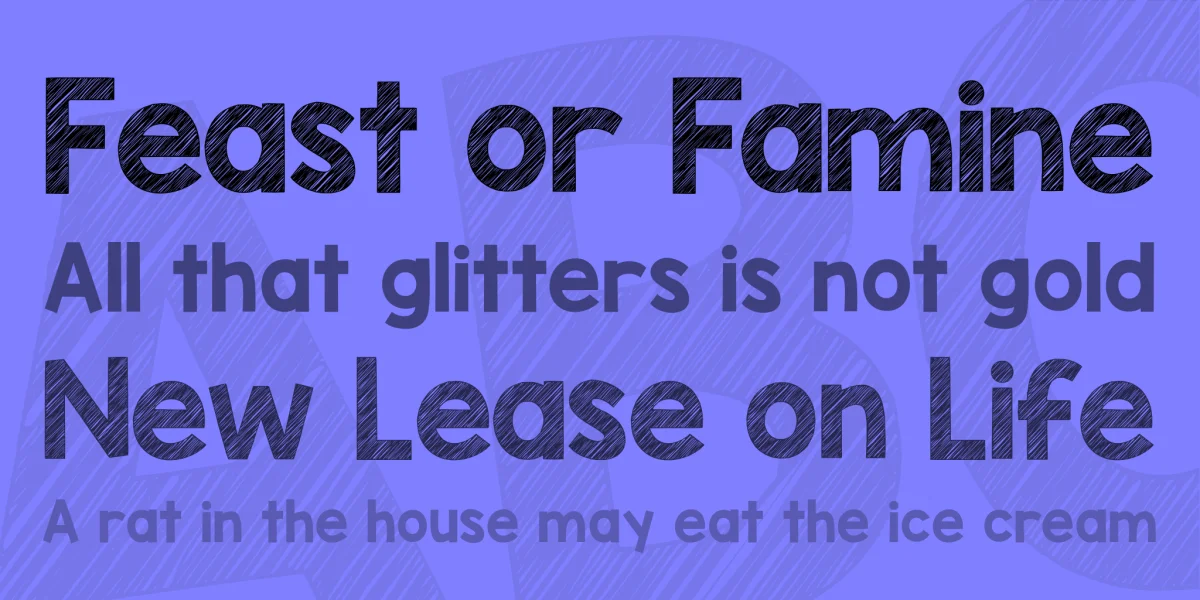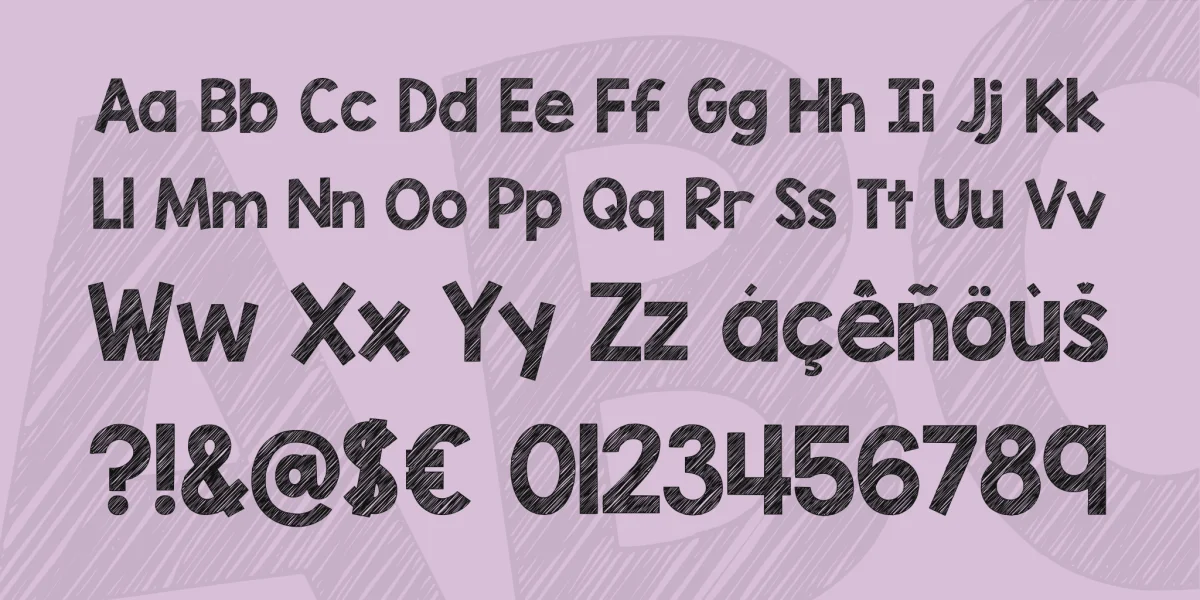
I love chalkboard, sketch, chalk style fonts- whatever you call them, I love them. I especially love mixing them with the solid versions to create emphasis on certain words. As soon as I finished KG Red Hands, I knew I wanted a sharper edged version in a chalk style. Free for personal use. Please see kimberlygeswein.com for current licensing info. :)